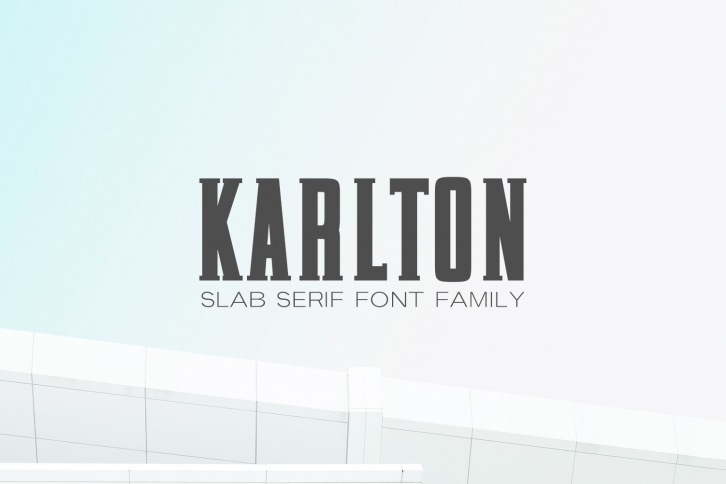
Karlton Slab Serif Family is a gorgeous font that was realeased on November 19, 2018. The font can be used in many style contexts and design environments. Perfect for invitations, magazines, websites, logos, and more! It was designed by Creativetacos and the file size is 5.61 MB. Thanks for checking out this font!